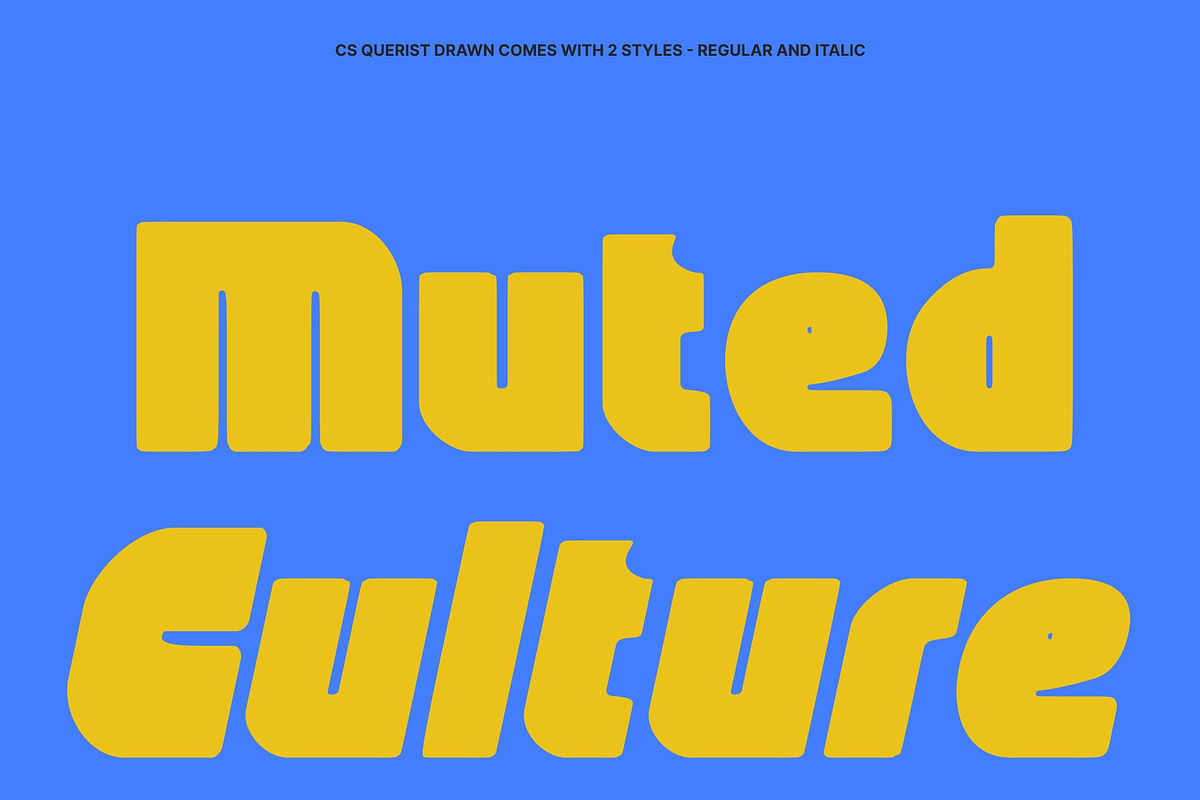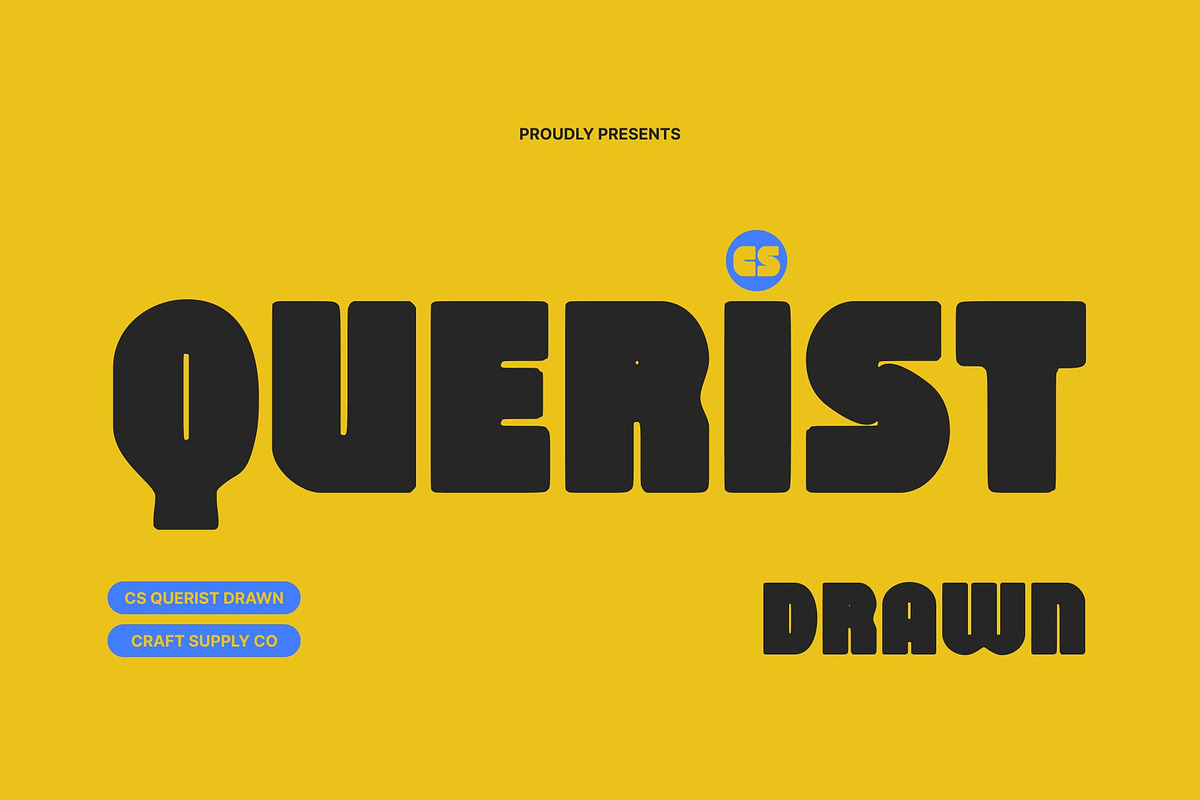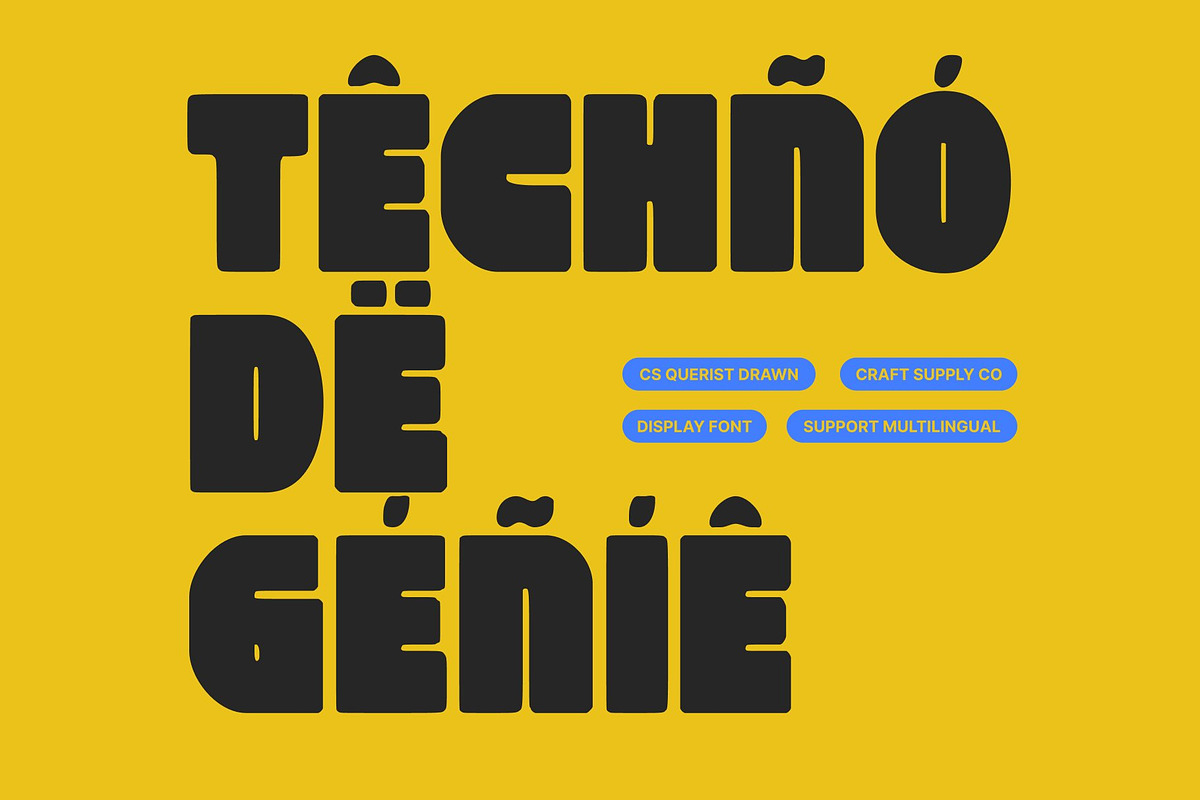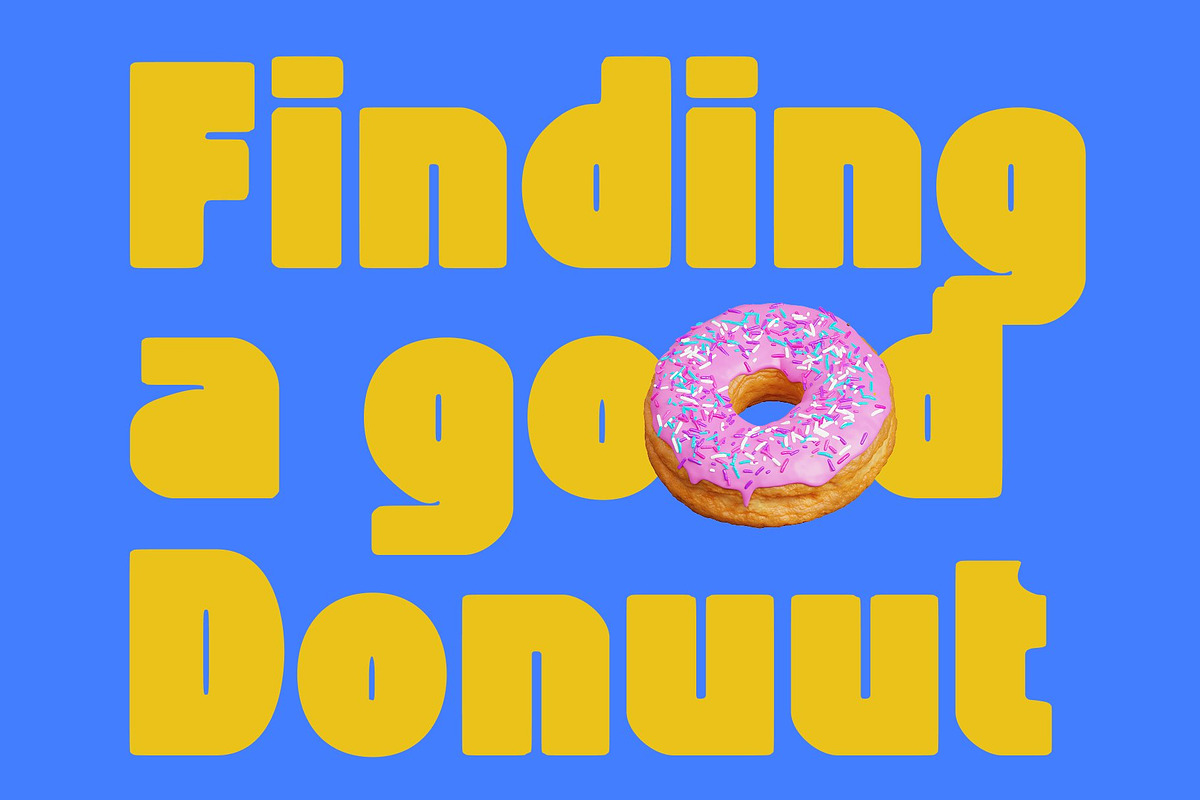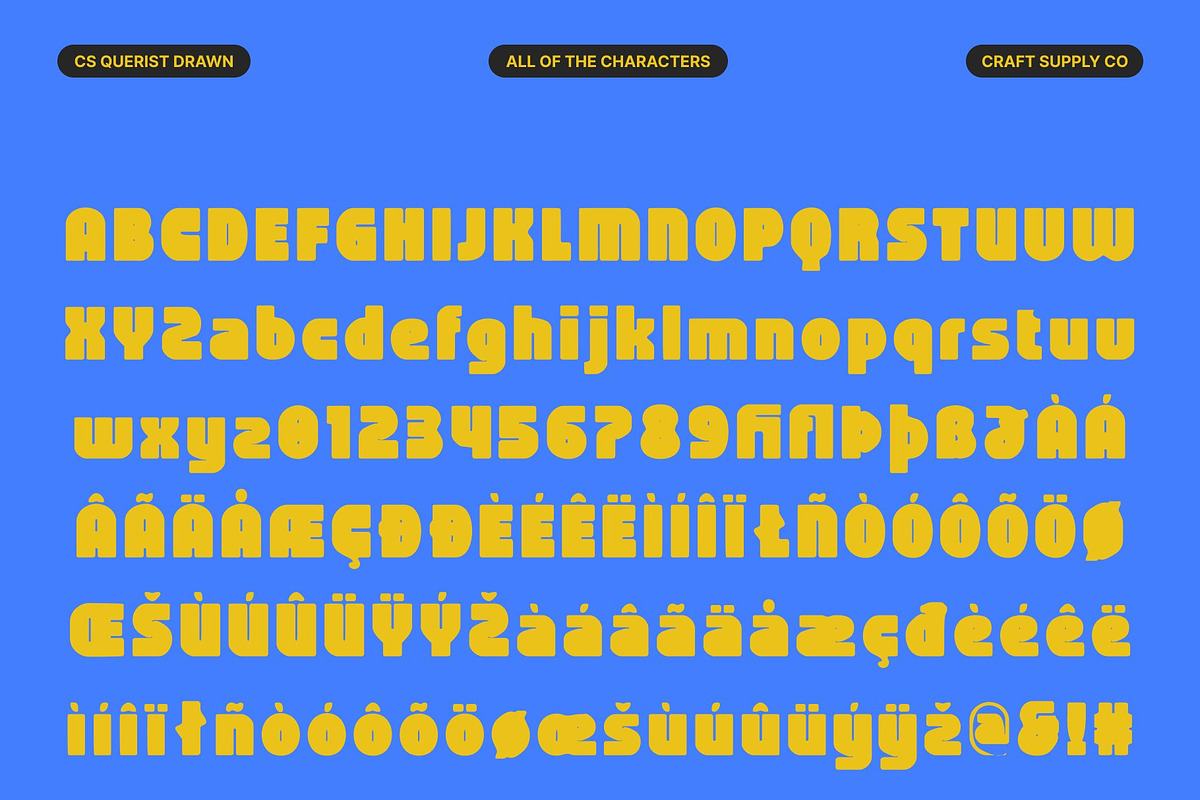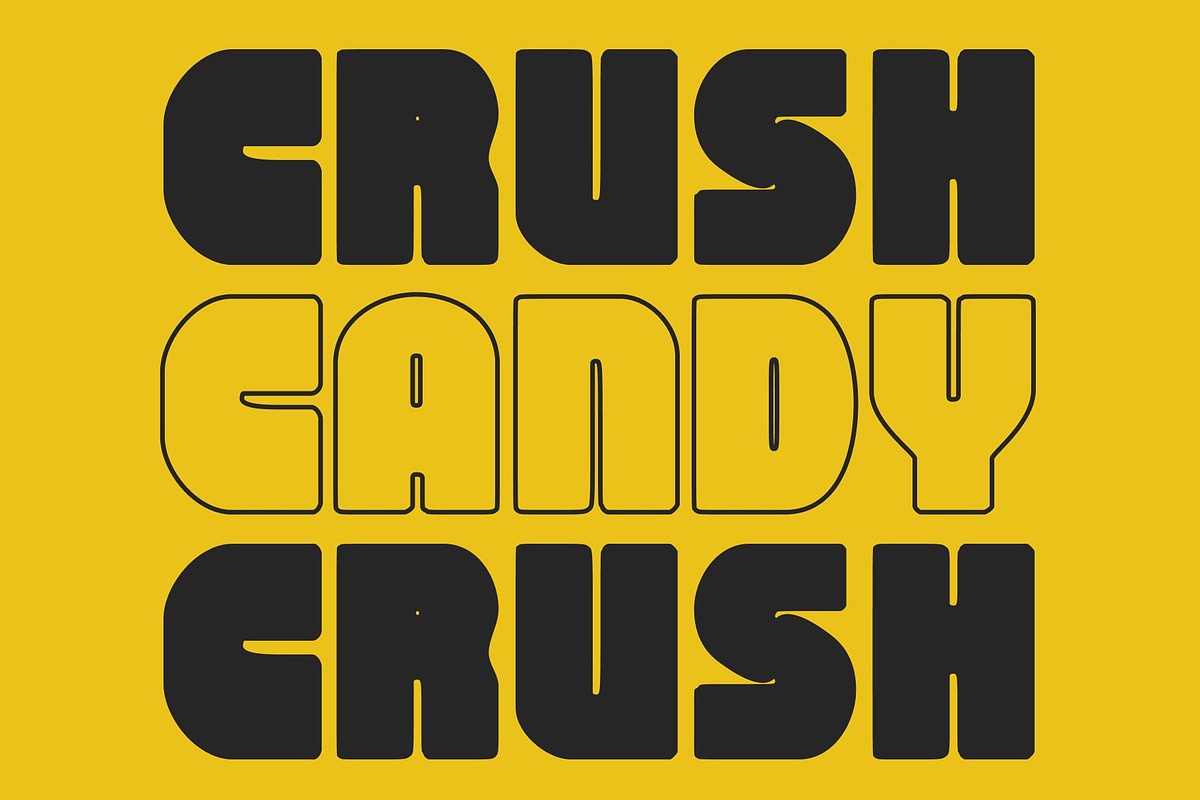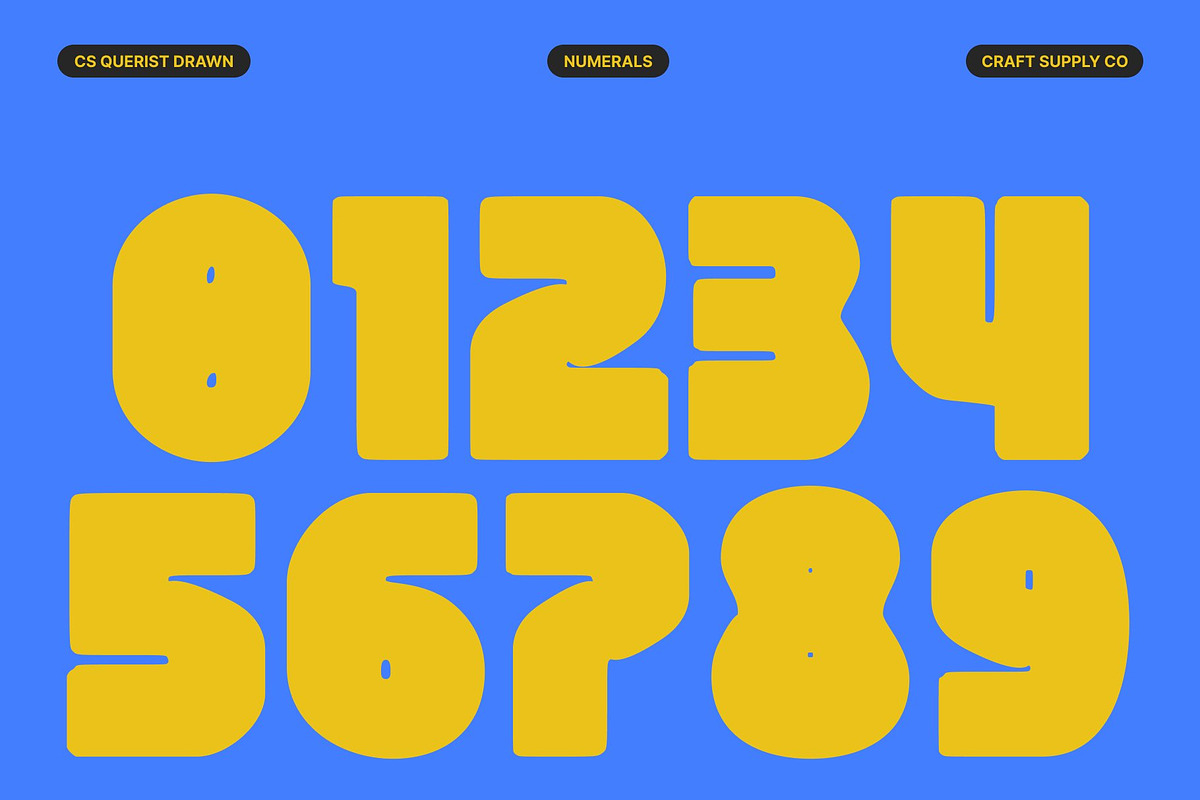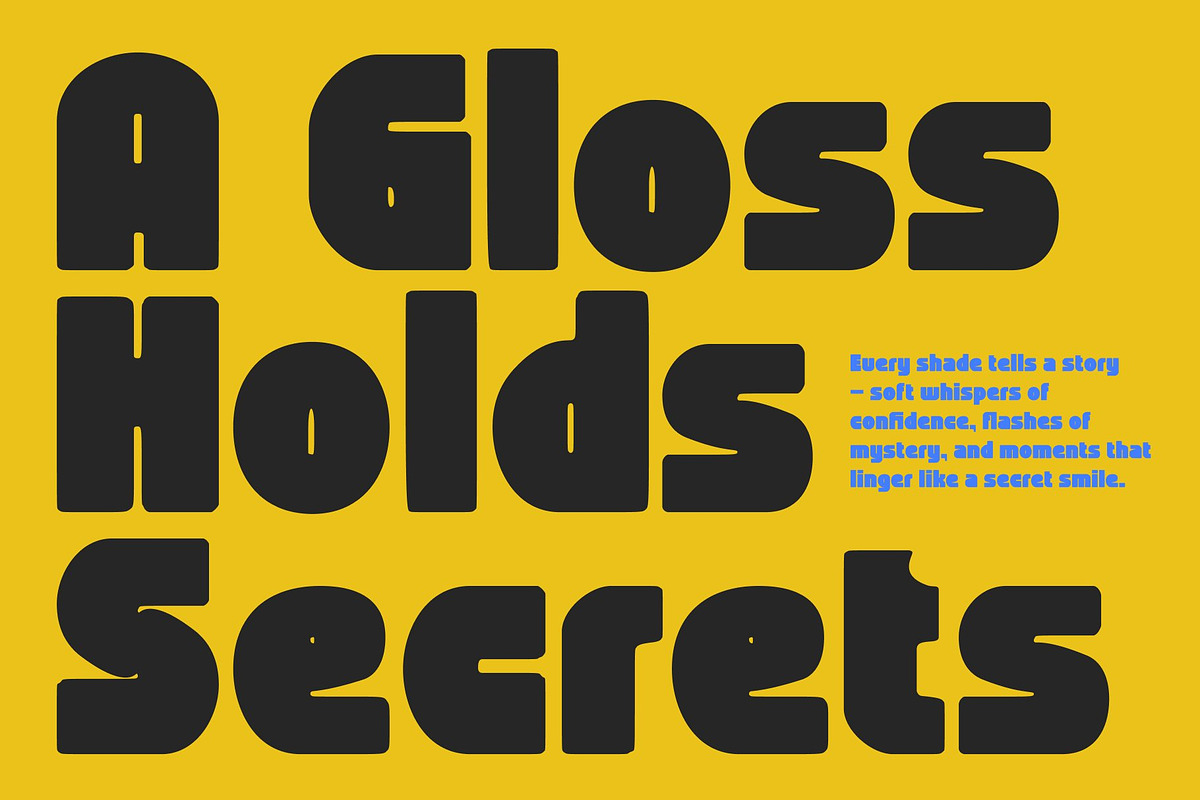
CS Querist Drawn
CS Querist Drawn – Bold Font with Retro Strength and Timeless Character
Classic Boldness Meets Hand-Drawn Charm This is a bold sans-serif font that fuses mid-20th-century vintage inspiration with a handcrafted, modern twist. Its thick strokes and clean, structured edges convey confidence and authority, while the subtle drawn texture introduces a lively, tactile character that gives every letter a unique personality.
Impactful and Confident Letterforms With its strong, solid forms, this font makes a striking visual statement. Each character is designed to stand out, delivering maximum impact for headlines, banners, titles, and other high-visibility designs. The hand-drawn effect adds a distinctive edge that enhances memorability and artistic appeal.
Retro Spirit with Contemporary Flexibility Rooted in retro aesthetics yet adapted for modern design, this font works seamlessly across a variety of projects. Its vintage-inspired style adds charm and personality, while its bold structure ensures versatility for branding, editorial layouts, packaging, or logos that require a confident, stylish presence.
Perfect for Bold Branding and Display This font excels wherever strong typography is needed. From posters and merchandise to creative packaging and logos, it combines timeless retro appeal with a modern, handcrafted flair making designs feel both nostalgic and freshly contemporary.